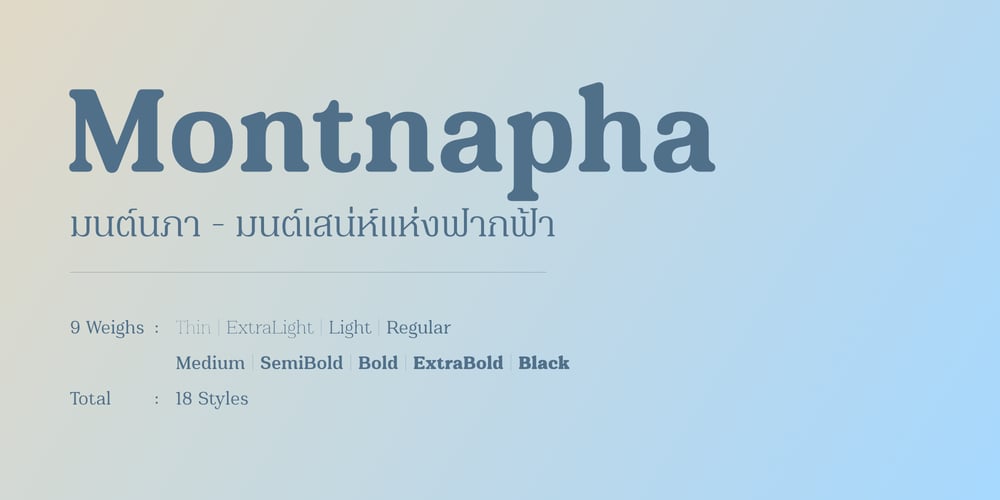
Montnapha Font Family was designed by Anupap Jaichumnan and published by Jipatype. Montnapha contains 18 styles and family package options. Montnapha is a charming slab serif display font characterized by its beautiful, and rounded letterforms. The soft, rounded edges lend a touch of warmth and approachability. Its clean and balanced design makes Montnapha ideal for creating standout headlines, logos, or posters.